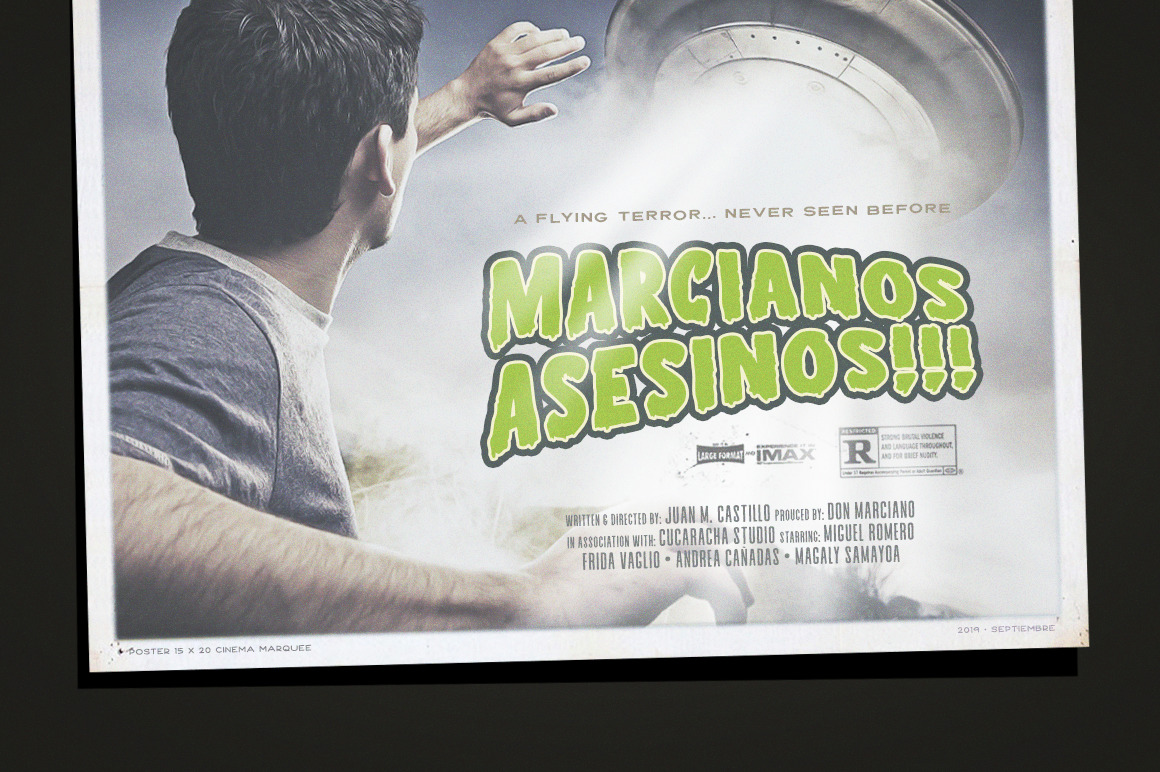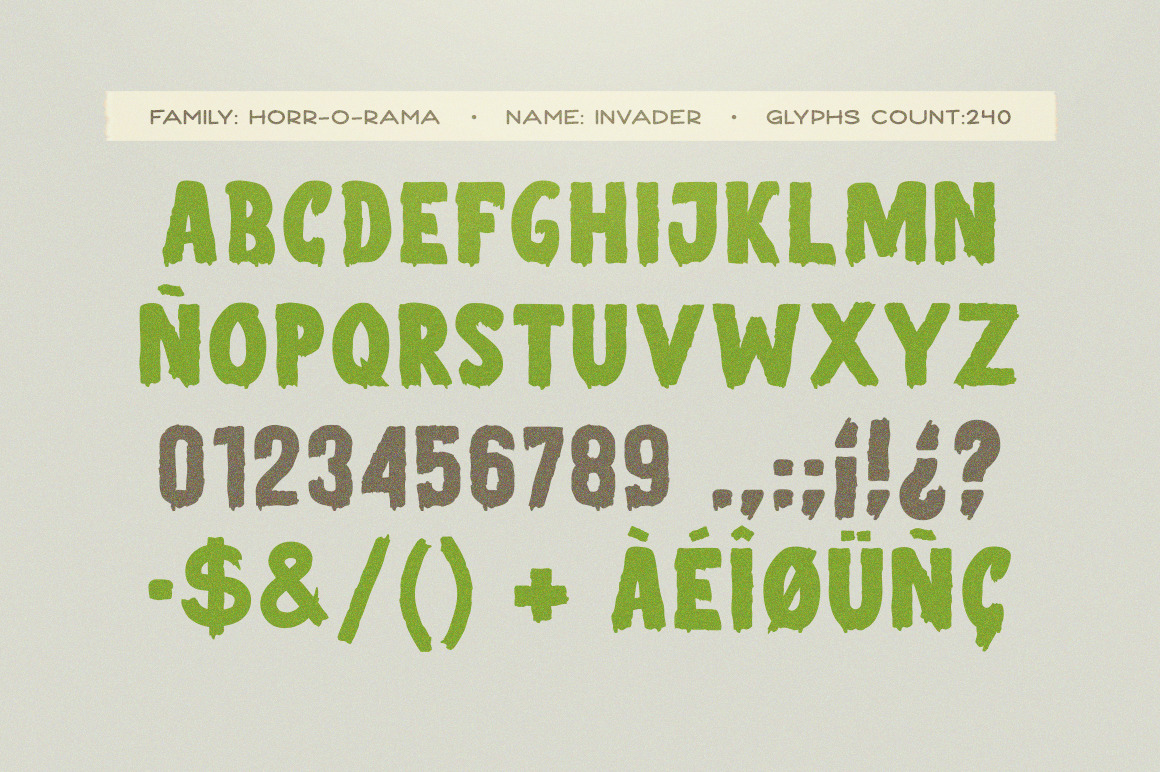
Invader Scary Font
Invader is a scary style font part of the family called HORR-O-RAMA, design for a series of Halloween posters inspired event by a local brewery, the goal was to reach a look and feel of mid-century design; with stress and rough lines, comes the first of many season fonts.